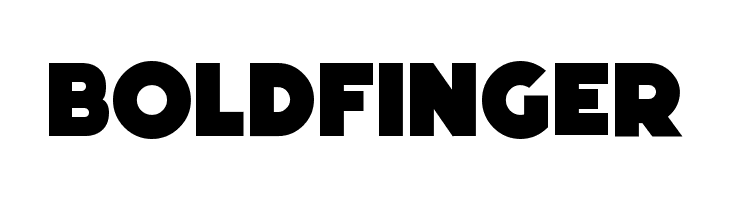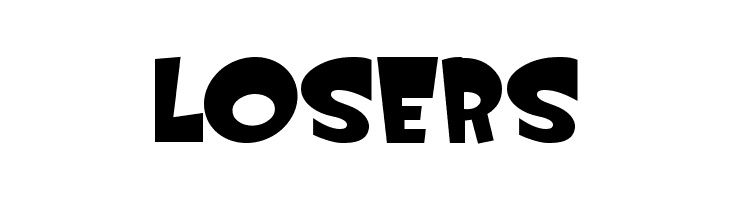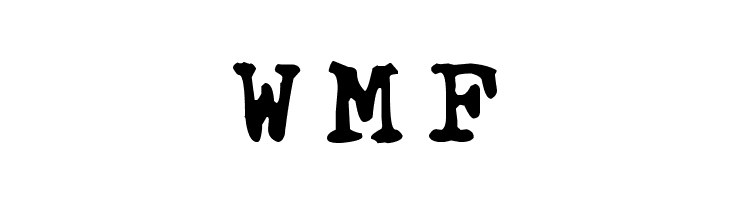
( Fonts by Maelle.K - Thomas Boucherie )
A playful and dynamic script font with flowing, interconnected letters.
A bold, italic, futuristic font with angular, geometric letterforms.
A bold, geometric outline font with an italic slant, perfect for modern and dynamic designs.
A dynamic and fluid handwritten font with an elegant and artistic flair.
A playful handwritten font with irregular strokes and a casual style.
A bold, angular font with a three-dimensional outlined style.
( Fonts by Daniel Gauthier )
A creative font featuring letters integrated into Moai statue silhouettes.
( Fonts by Manuel Viergutz - Typo Graphic Design - www.typographicdesign.de )
A playful, bubbly font with characters formed by interconnected dots, ideal for creative projects.
( Fonts by Letterena Studios )
A playful and whimsical font with rounded, expressive letterforms and charming heart motifs.
( Fonts by Jonathan S. Harris )
Hand-drawn, bold brush-style shapes and comic elements.
( گالری فانت فارسی پژوهش آريانا - only compatible with Farsi and Arabic )
An ornate and decorative font with intricate, angular designs.
A bold, flowing script font with smooth, connected strokes and playful curves.
( گالری فانت فارسی پژوهش آريانا - only compatible with Farsi and Arabic )
A bold, outline-style font with uniform height and striking appearance.
A futuristic and geometric font with bold, angular letterforms.
A classic serif typeface with elegant serifs and versatile character support.
A classic serif font with elegant lines and balanced proportions.
A flowing, cursive font with elegant curves and a modern, handwritten style.
( Stéphane Béguin - www.simplixi.fr )
A playful, handwritten font with smooth, rounded edges and a casual style.
( Font Monger - www.fontmonger.com )
A rugged, distressed serif font with a bold, vintage appearance.
A bold, serif font with a classic and commanding style.
A bold, semi-italic font with a futuristic and dynamic style.
A bold, brush-style font with dynamic, artistic strokes.
A bold, pixelated font with a retro video game aesthetic.
A playful and casual handwritten font with bold, consistent strokes.
A playful, handwritten font with rounded edges and a casual style.